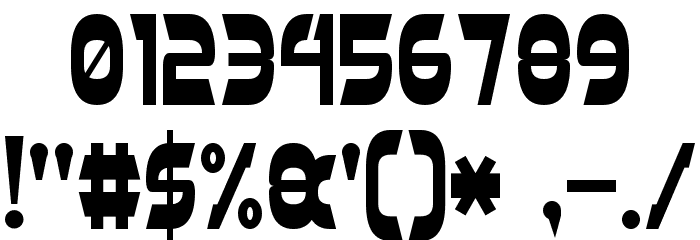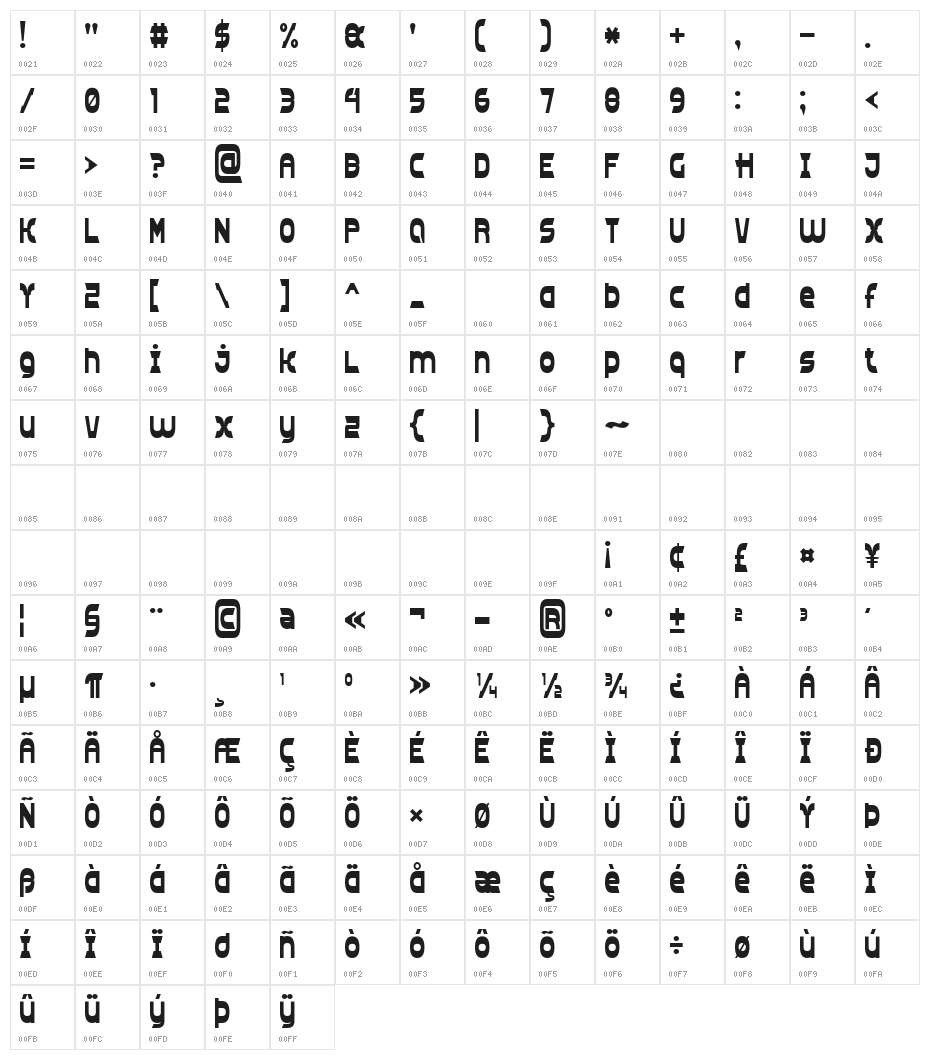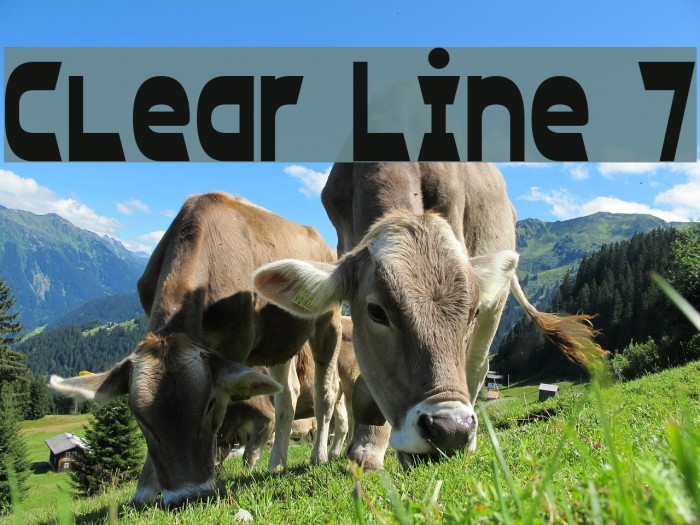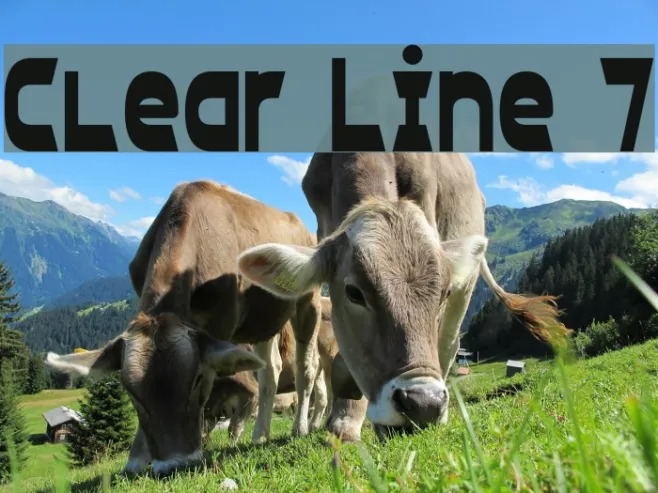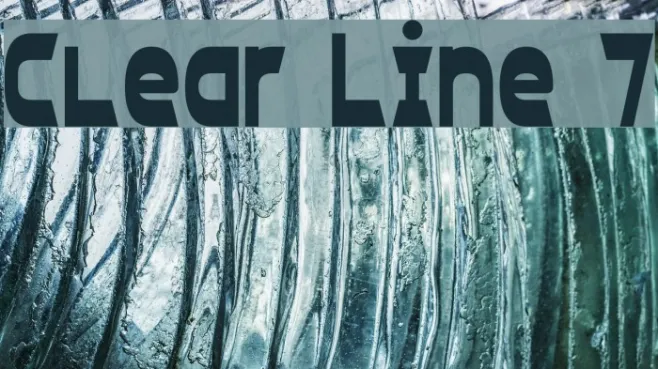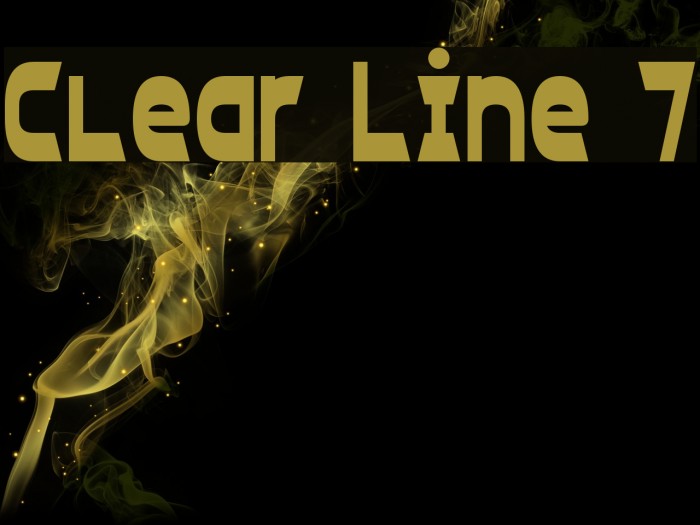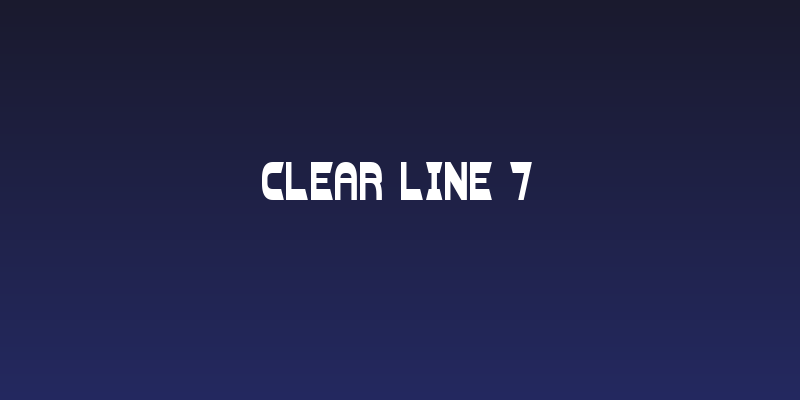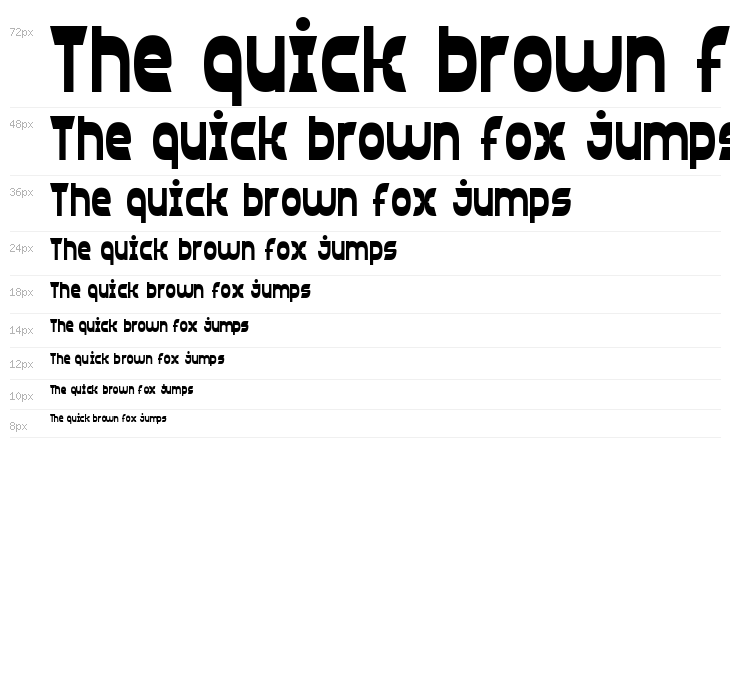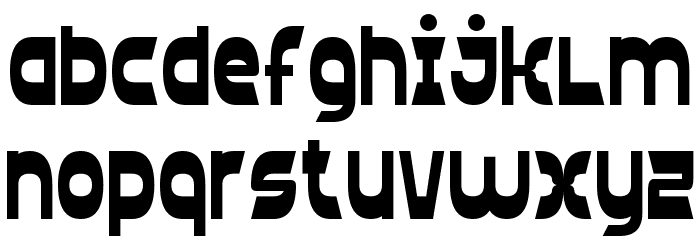
Clear Line 7 Font
Clear Line 7 Description
This font features a bold and geometric design with a futuristic flair. The characters are constructed with a combination of sharp angles and rounded edges, creating a unique visual contrast. The uppercase letters are particularly striking, with some incorporating unexpected cutouts and shapes that add to the modern aesthetic. The lowercase letters maintain a consistent style, ensuring readability while still offering a distinct appearance. Numbers and special characters follow the same design principles, making them cohesive with the rest of the font. This typeface is ideal for projects that require a bold statement and a modern touch.